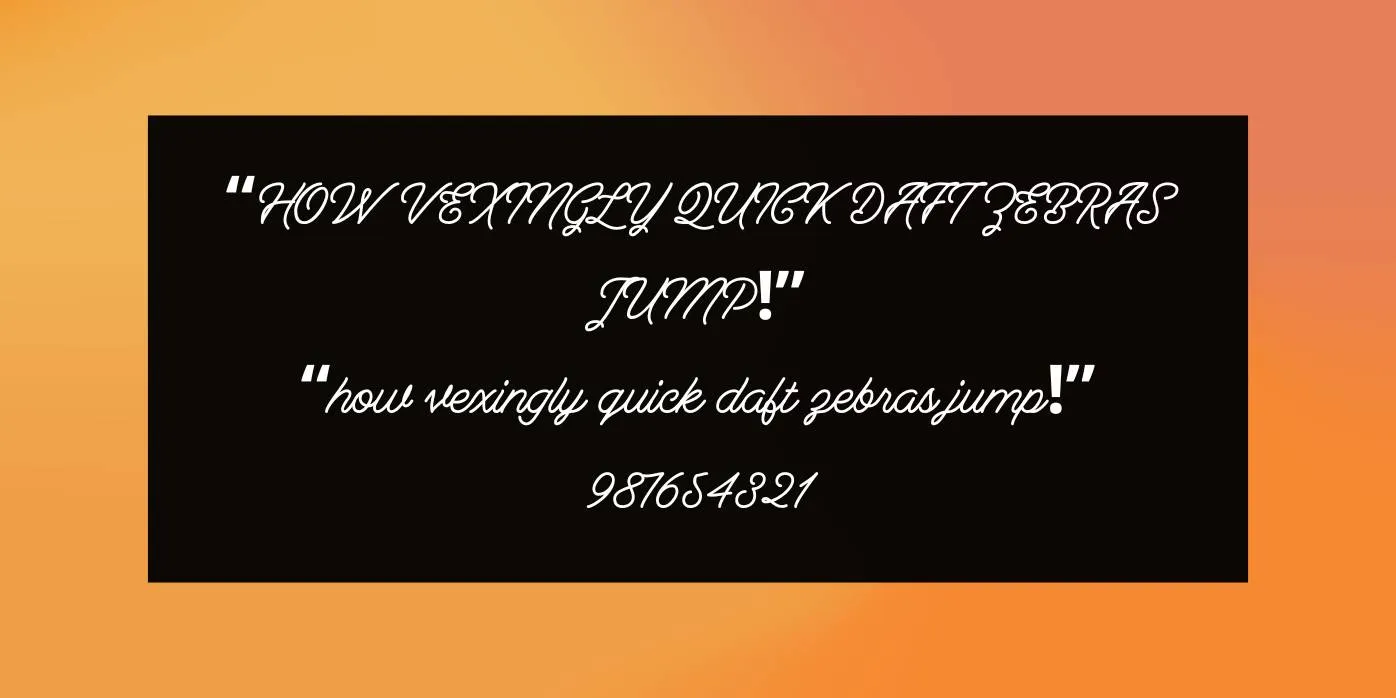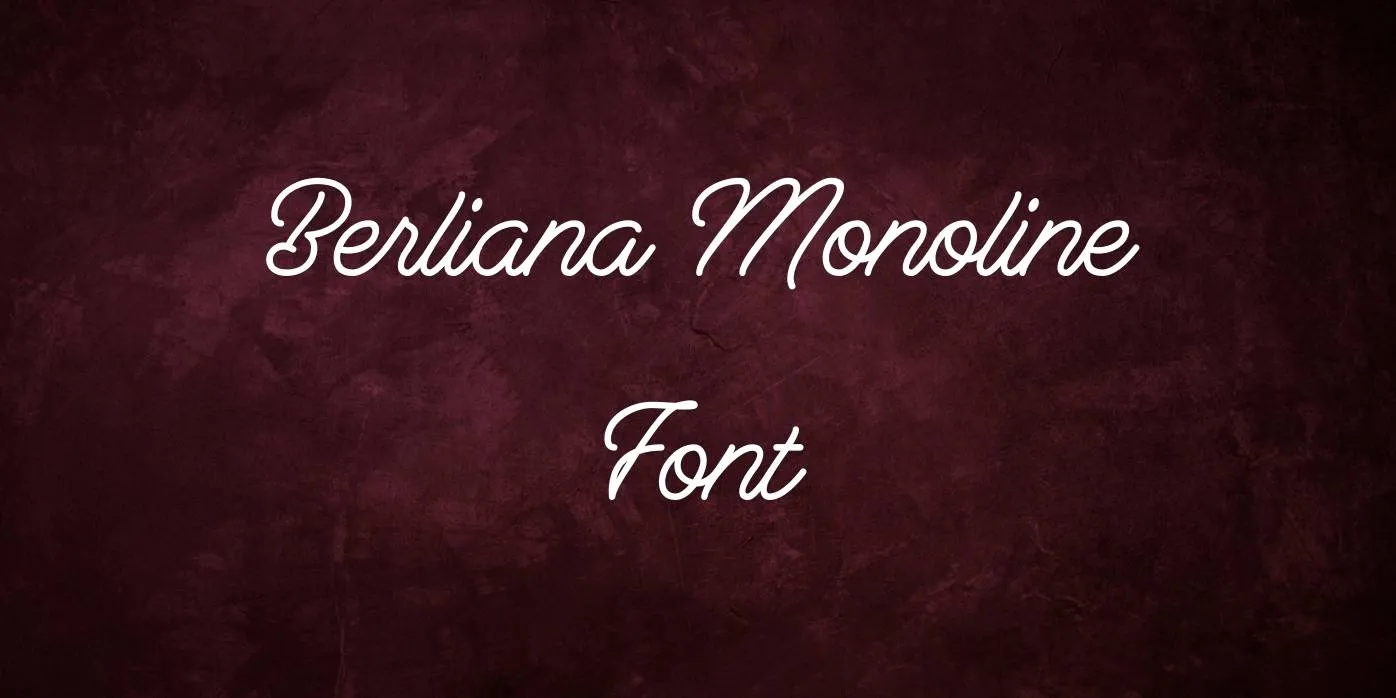
Berliana Monoline Font
Junaedi designed this script font. Berliana Monoline Font is stunning script typeface that has stylish characters. This font characters include upper and lowercases that attract clients. This letterform supports a free generator tool, that converts any style of texture into this font because this is an online process that did not require any download.